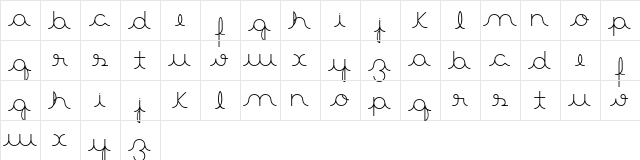
Aster 3 Medium
Design Context for Aster 3 Typeface
Aster 3 takes a measured approach to typography — its balanced proportions and neutral character make it a reliable workhorse for both digital and print work.